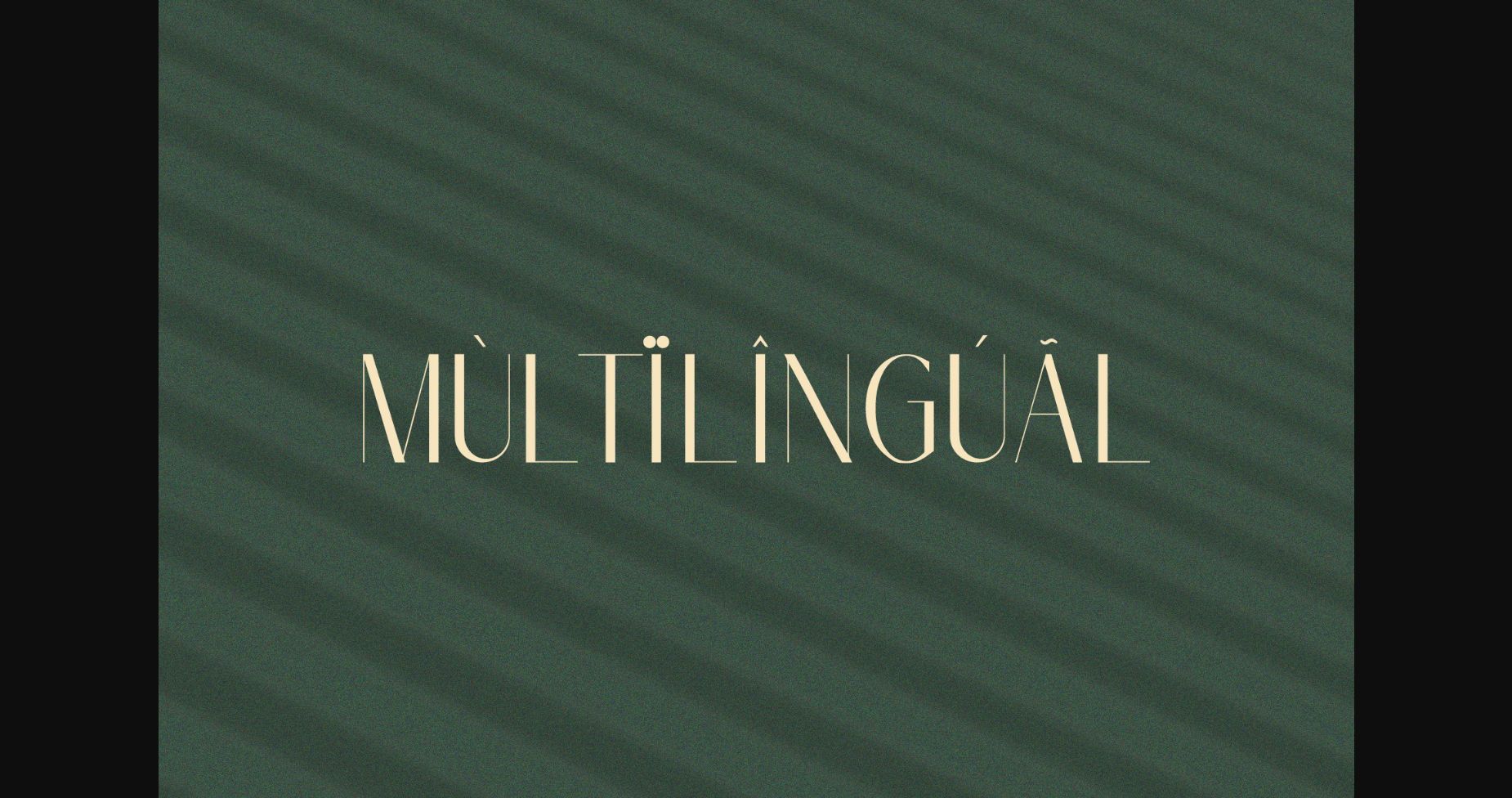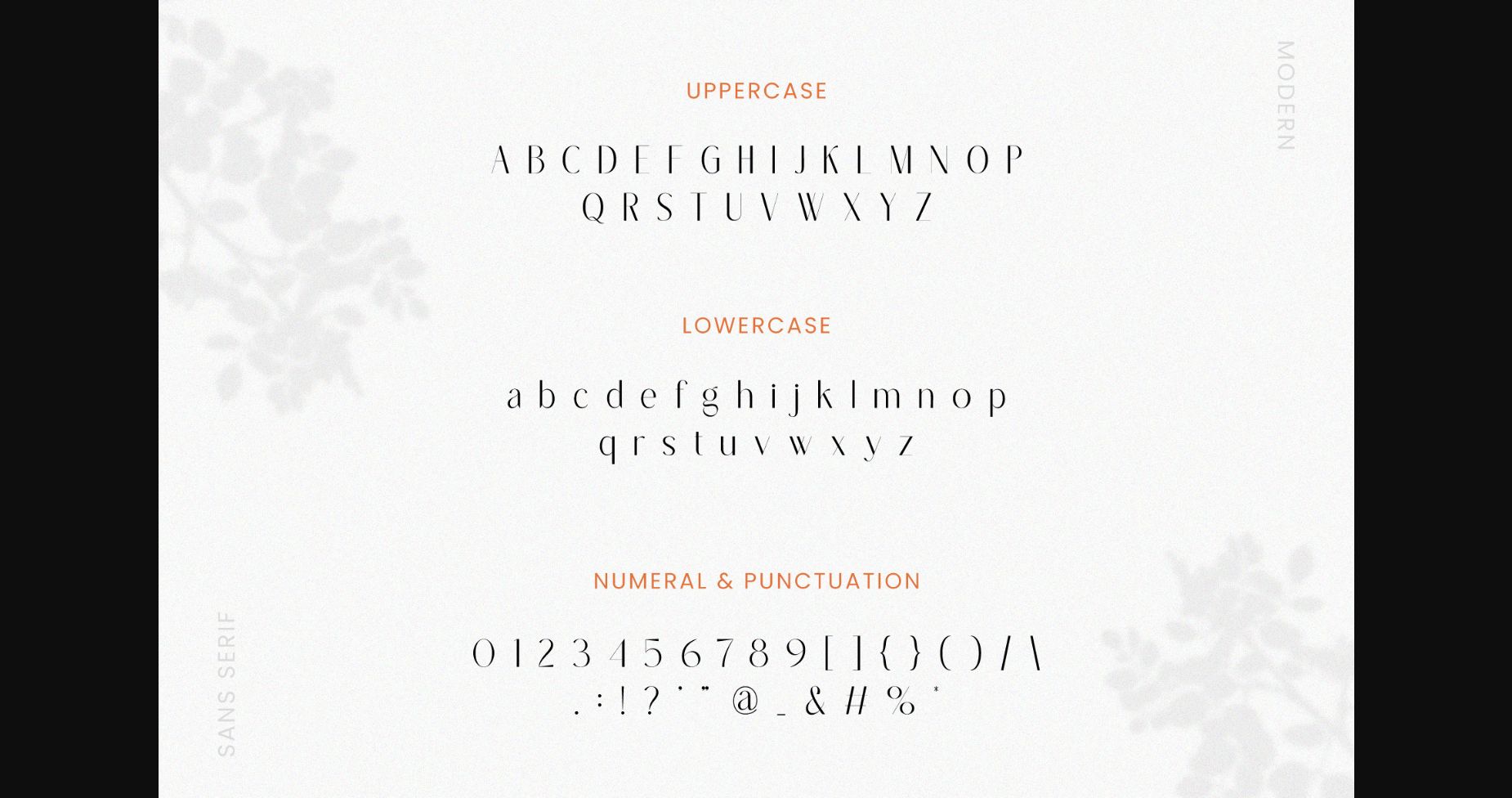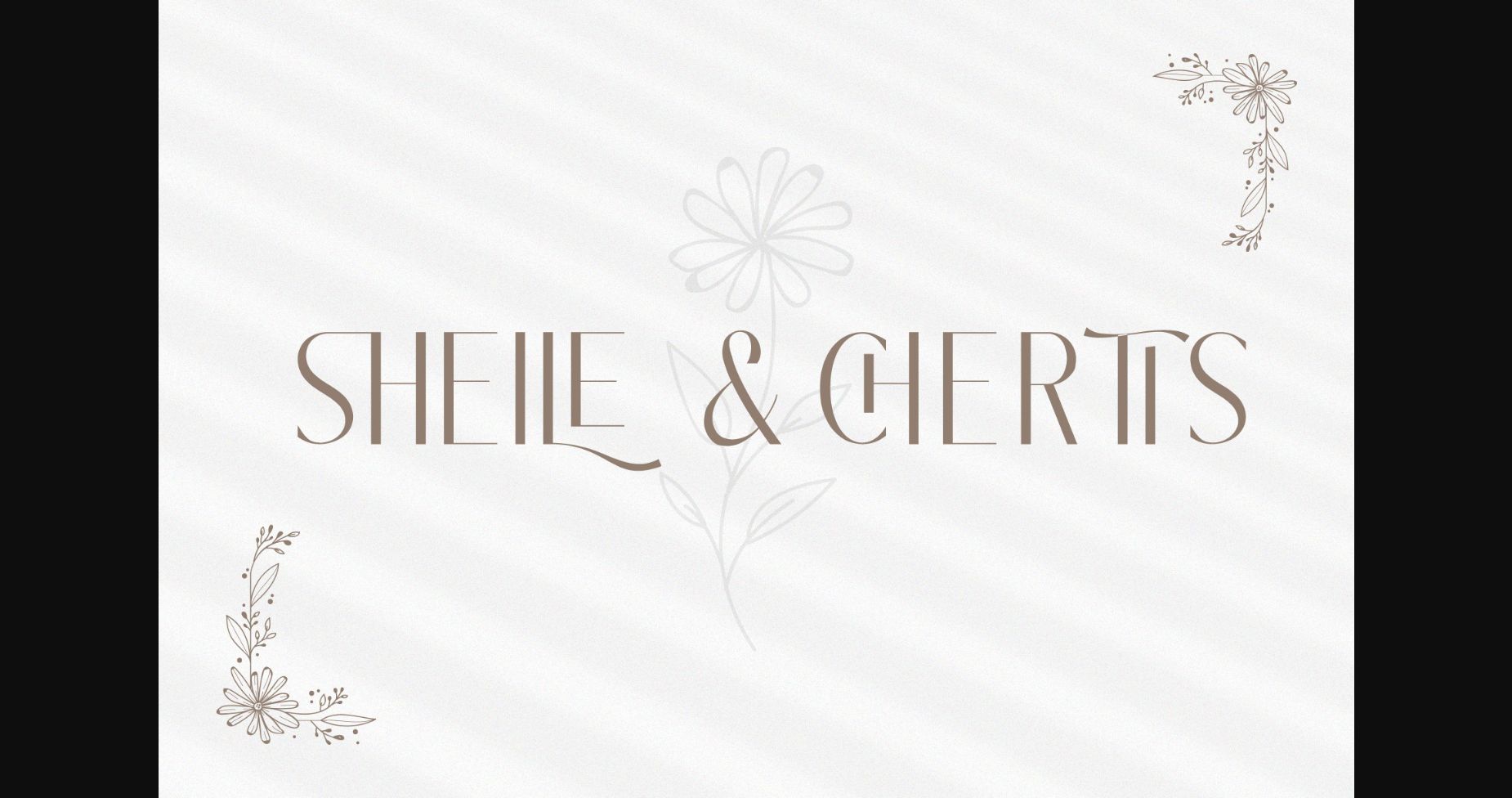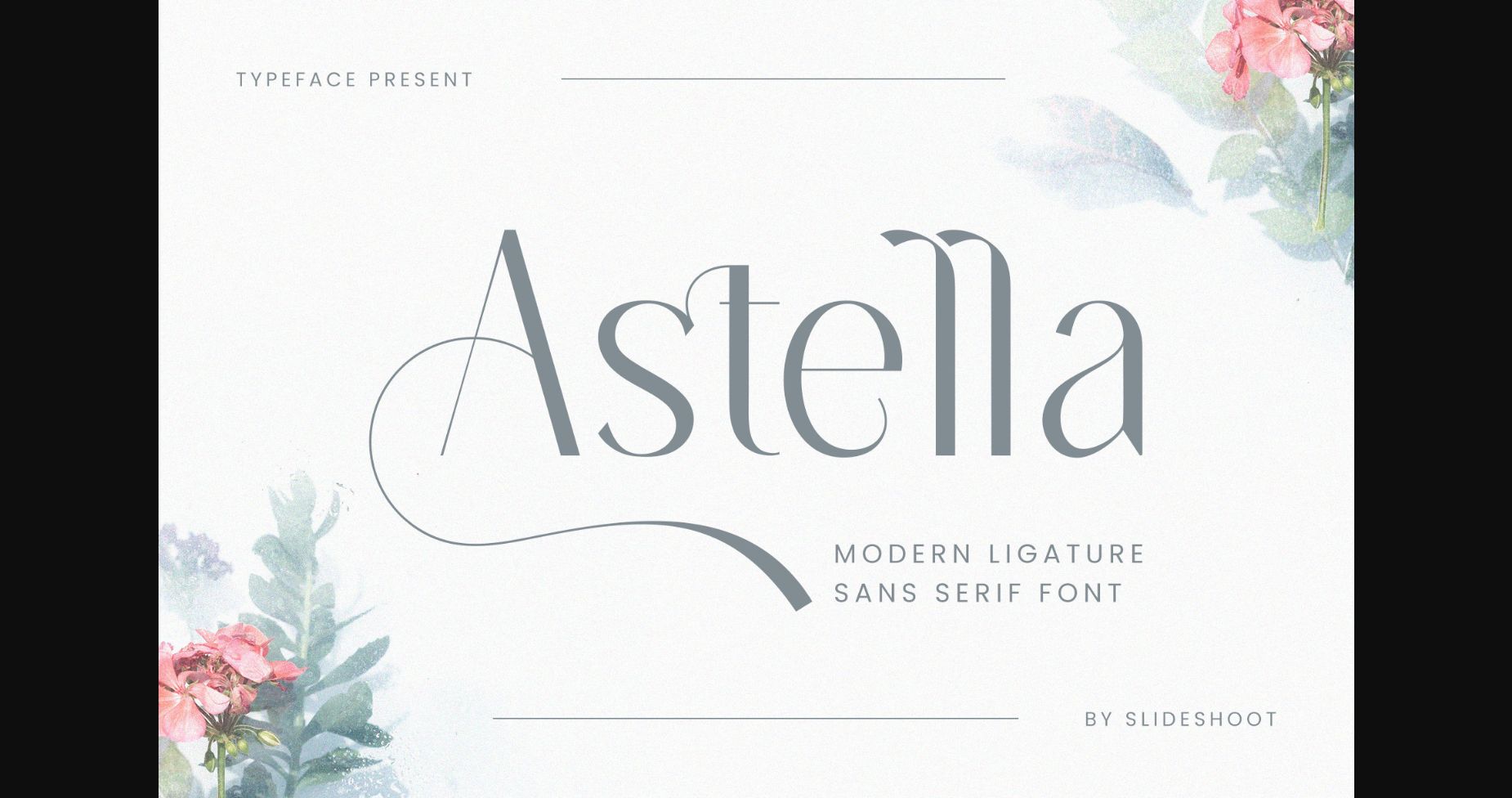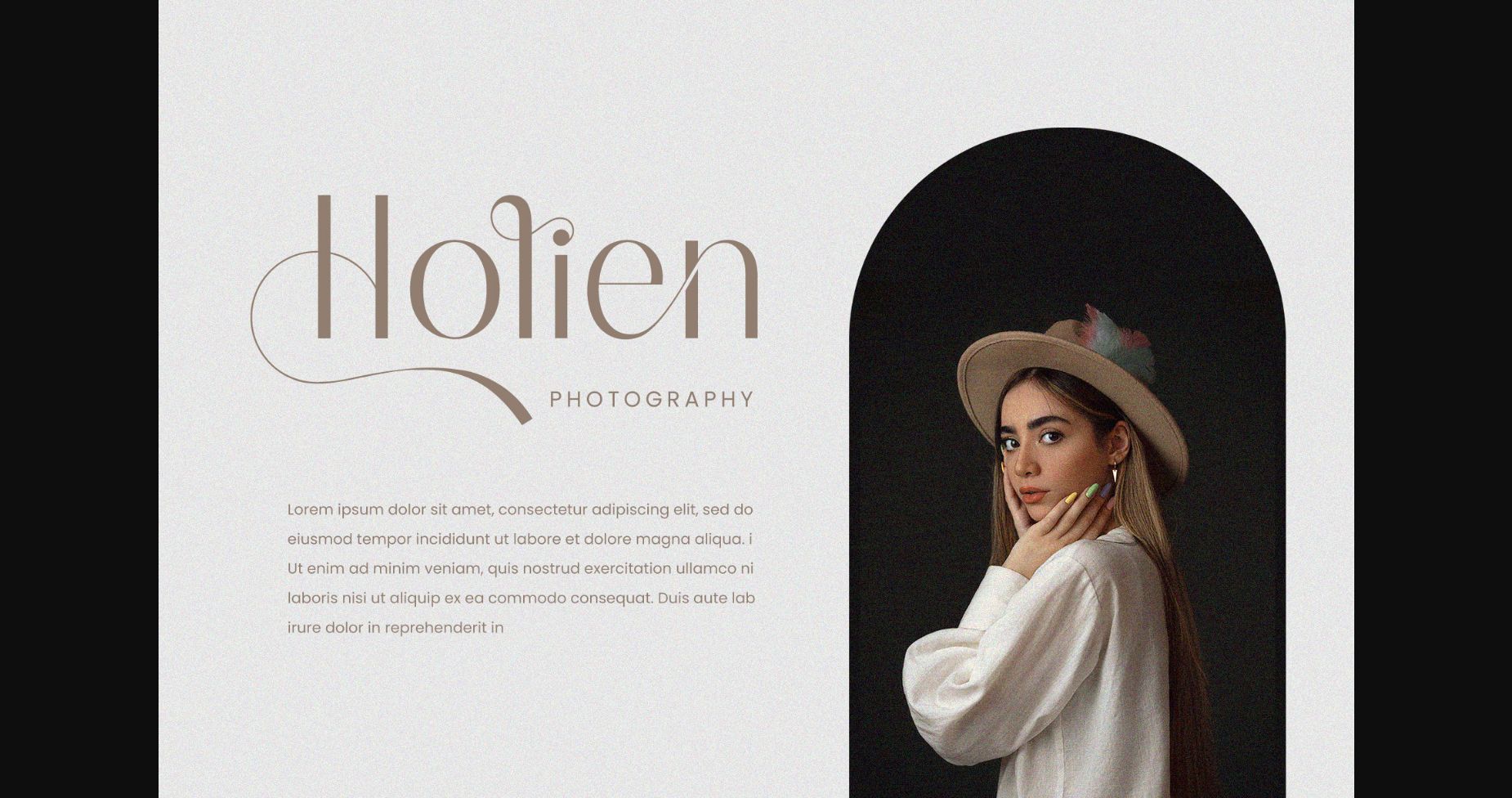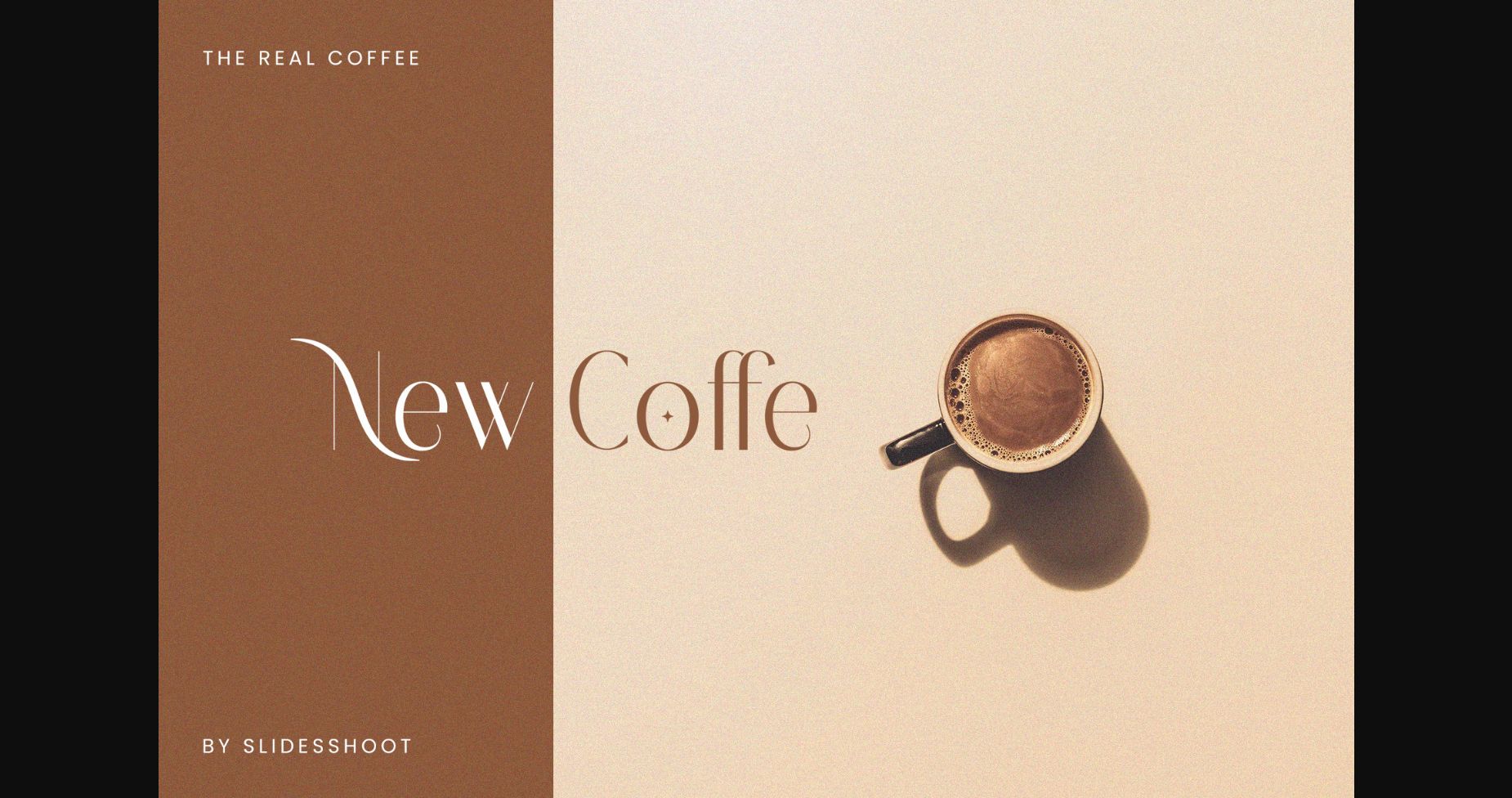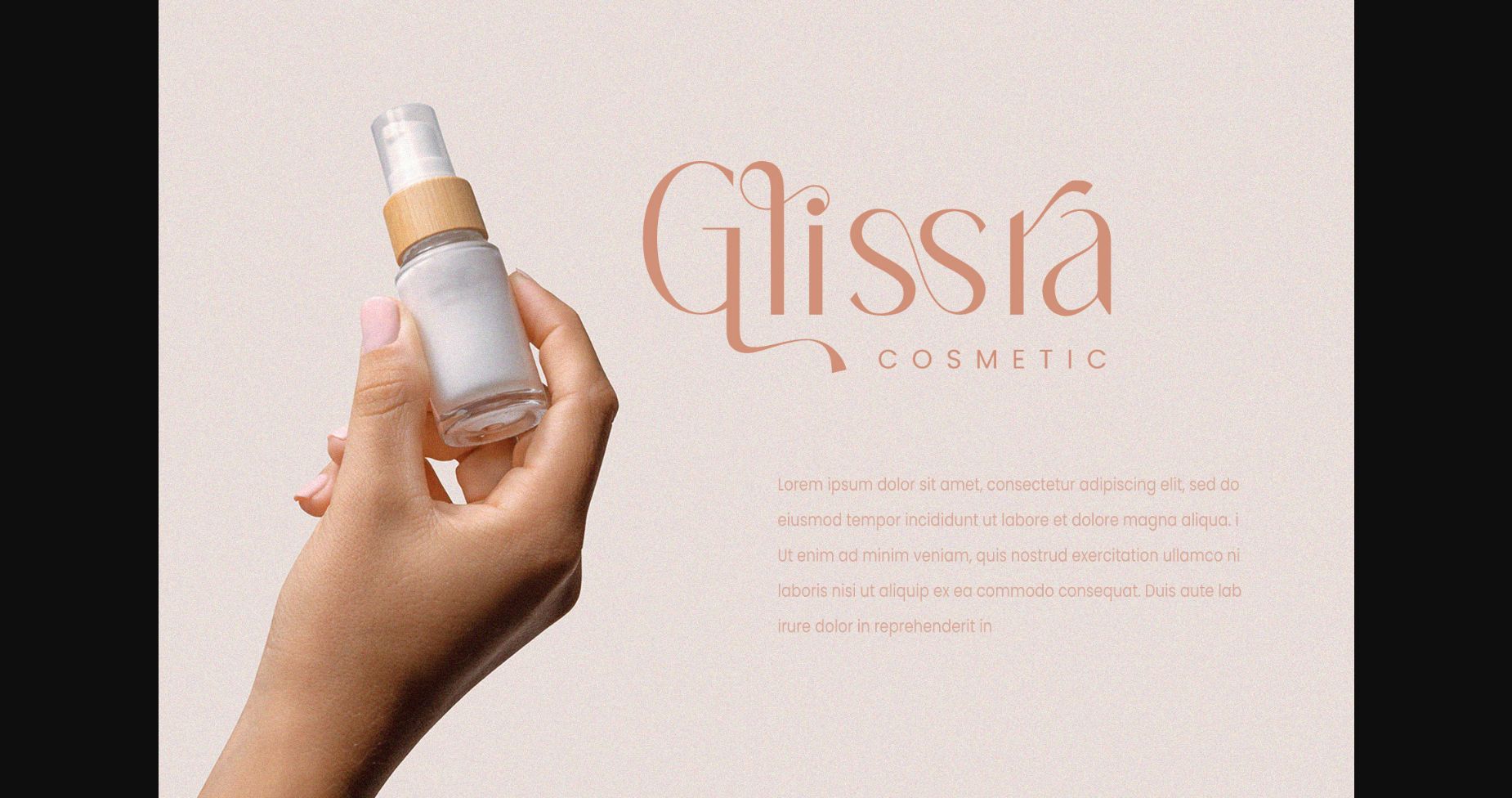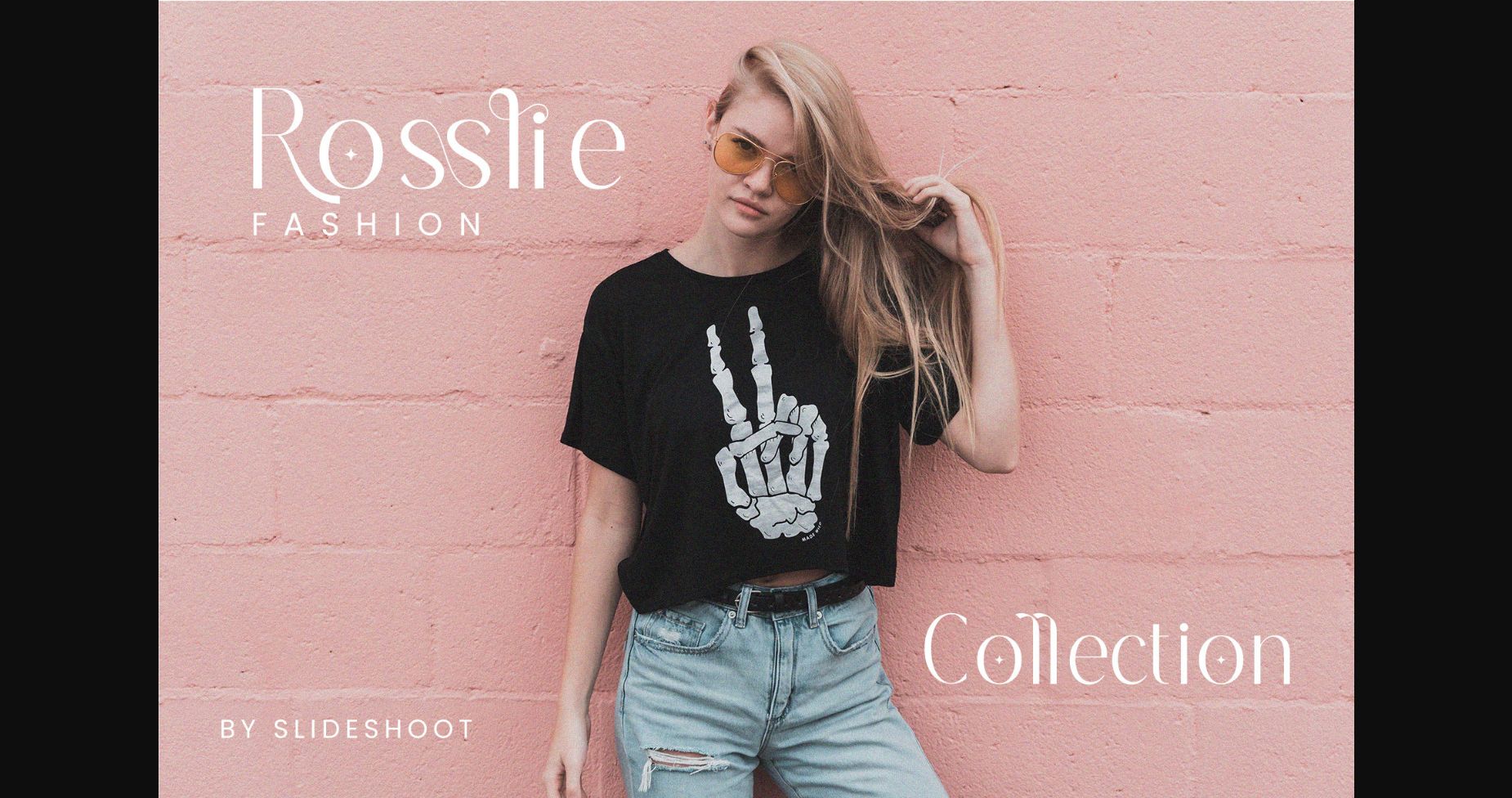
Astella Font
About Astella Font
This lovely sans-serif font is a modern twist on a classic design. Astella’s clean lines and rounded edges give it a friendly and approachable feel, while its bold strokes make it stand out. Ideal for adding a touch of simplicity and elegance to any project.